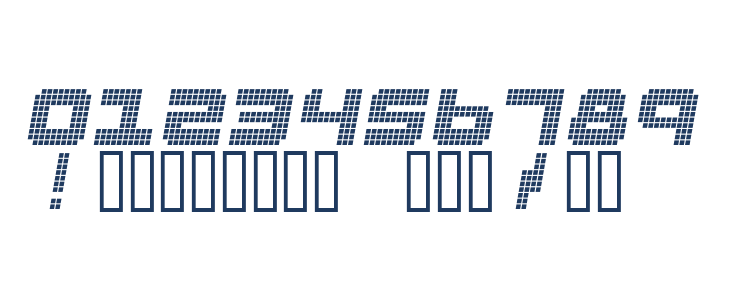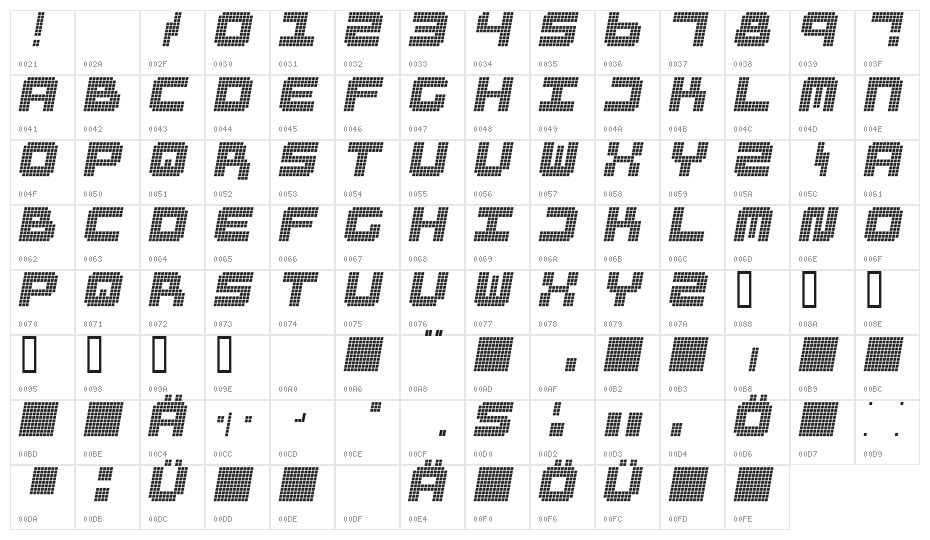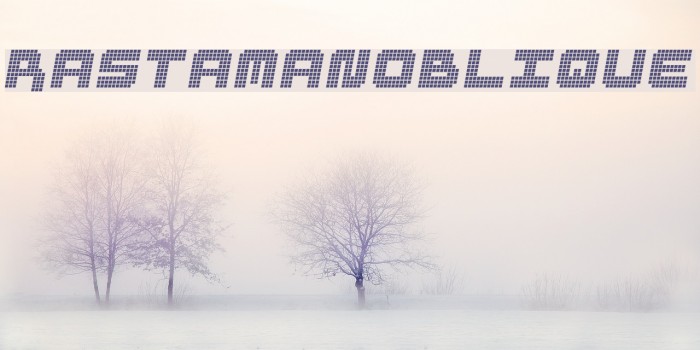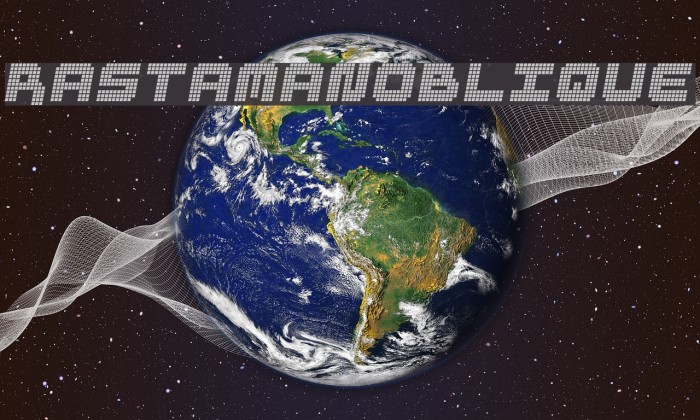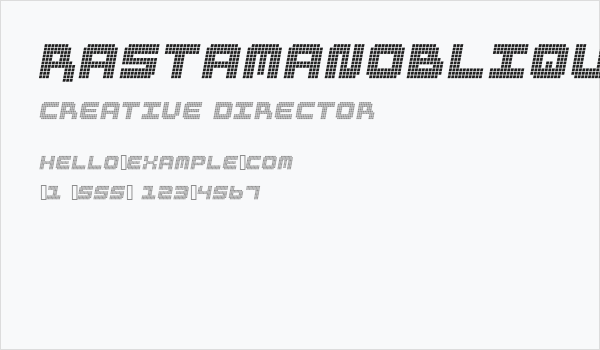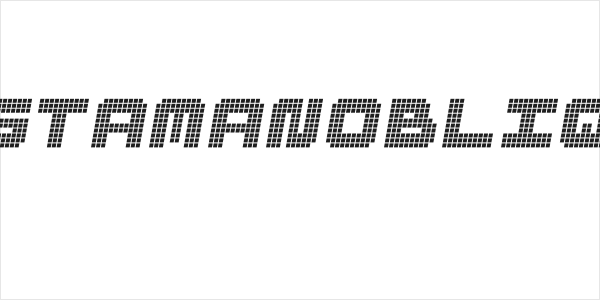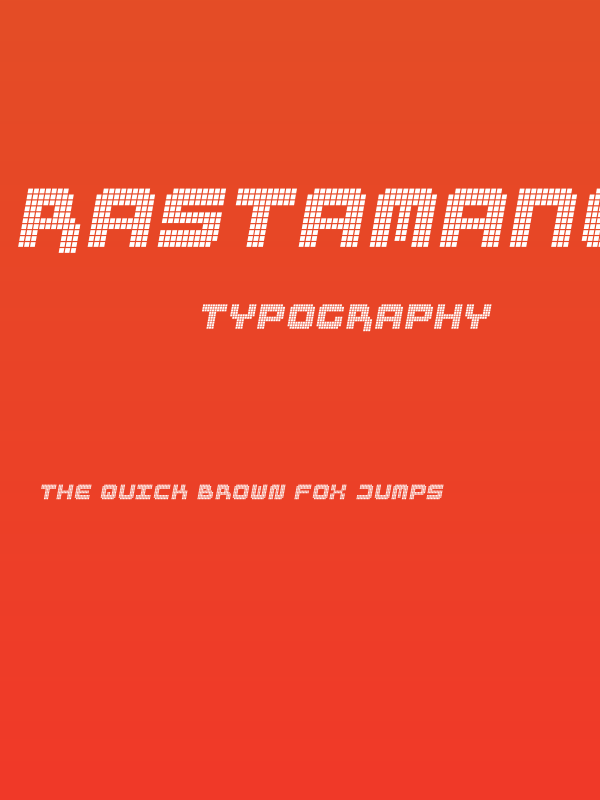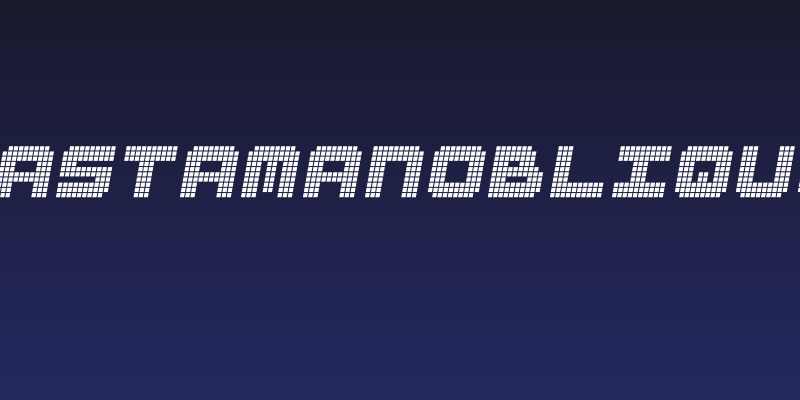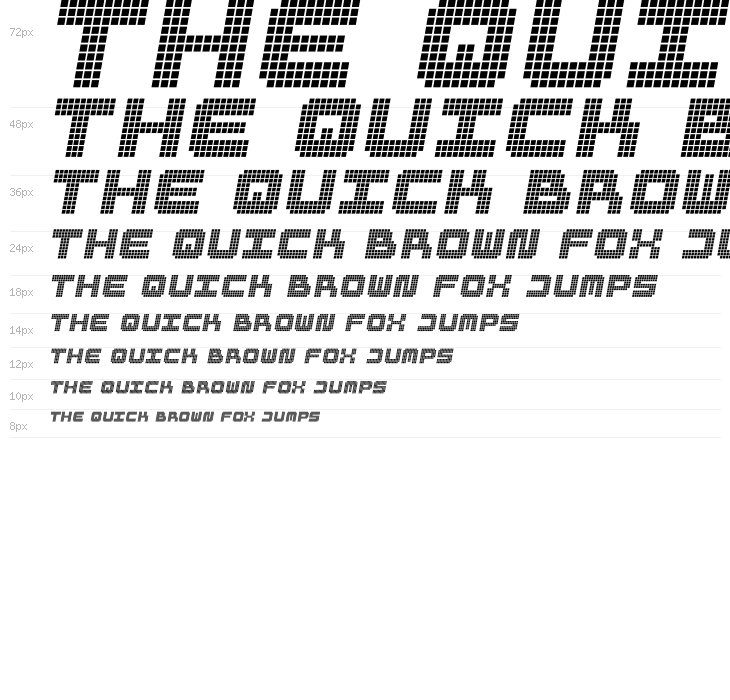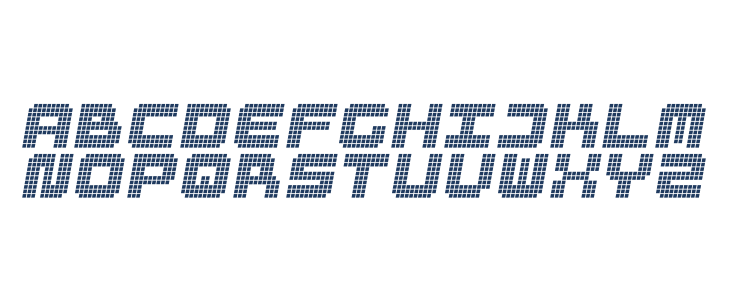
RastaManOblique Font
RastaManOblique Description
This font features a unique, pixelated design that gives it a digital, retro feel. Each character is composed of small, square blocks that form the shape of the letter or number, creating a distinct and eye-catching appearance. The font is oblique, adding a sense of movement and dynamism to the text. Its bold and structured form makes it ideal for projects that require a modern and technological aesthetic. The characters are evenly spaced, ensuring readability while maintaining its decorative style. This font is perfect for creative projects that aim to capture a sense of nostalgia or digital innovation.
| Overall Style | Modern, Retro |
| Proposed Projects | Ideal for video game graphics, tech-themed posters, digital art, and retro-inspired branding. |